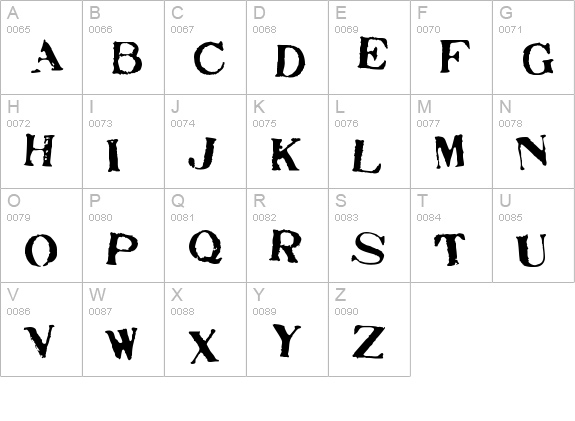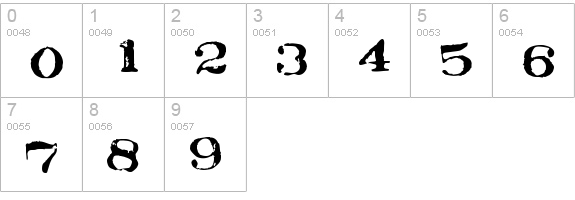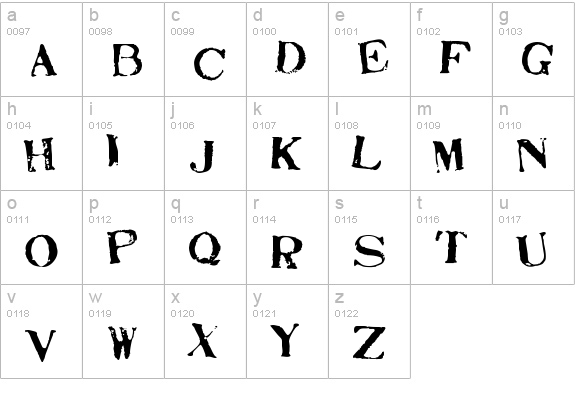
Introducing the captivating and unique Stamp Act Jumbled font, a delightful display typeface that is sure to leave a lasting impression. With its whimsical jumbled letters, this font adds a touch of playful charm to any design project. Stamp Act Jumbled font is freely available to download at FontsMarket.com, making it accessible to all designers and creatives looking to add a touch of fun and creativity to their work. This versatile font is perfect for a wide range of applications, from eye-catching headlines to attention-grabbing logos. The irregularly scattered letters of Stamp Act Jumbled font create an intriguing visual effect, capturing the essence of hand-stamped typography. Each character is meticulously crafted, ensuring that every design created with this font stands out from the crowd. Whether you're designing a poster, creating a social media graphic, or crafting a unique brand identity, Stamp Act Jumbled font offers endless possibilities. Its charming and playful nature is sure to captivate your audience, leaving a lasting impression. With its freely available download at FontsMarket.com, Stamp Act Jumbled font allows you to explore your creativity and add a touch of personality to your designs. Don't miss out on this fantastic opportunity to elevate your projects with this captivating and one-of-a-kind font. Download Stamp Act Jumbled font today and let your imagination run wild!